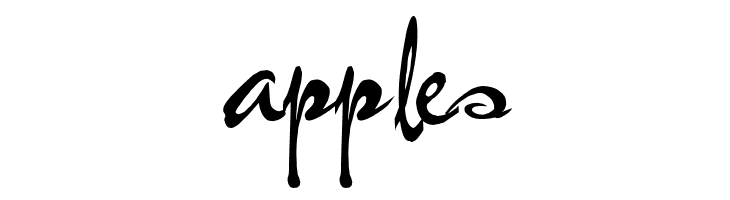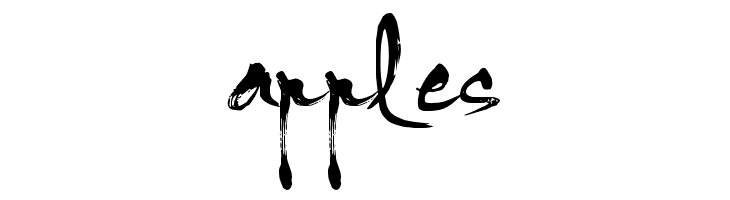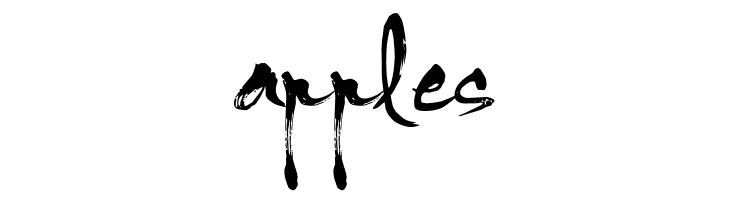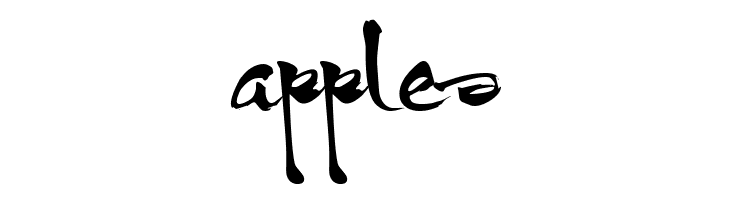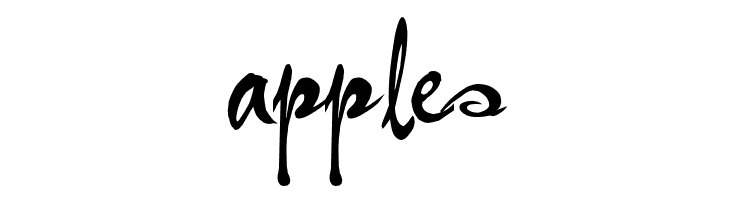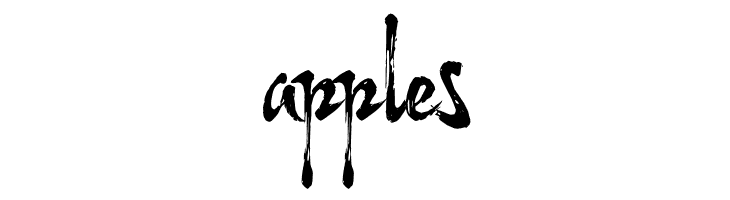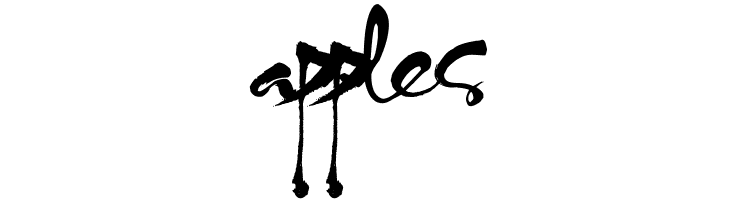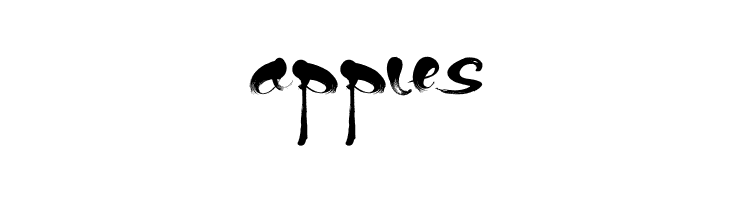
A bold, expressive calligraphic font with dynamic strokes and artistic flair.
A bold, brush-style font with dynamic, handwritten characteristics.
A dynamic, calligraphic font with bold, sweeping strokes and a modern flair.
A dynamic, calligraphy-inspired font with bold, expressive strokes.
A dynamic, expressive calligraphic font with bold, sweeping strokes.
A dynamic, calligraphic font with bold, brush-like strokes.
A dynamic, brush-style font with bold, expressive strokes and artistic flair.